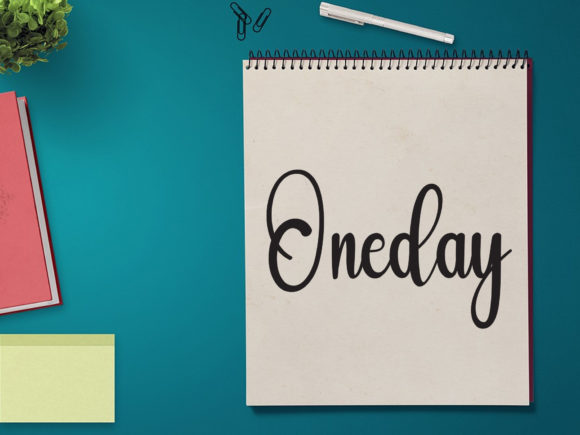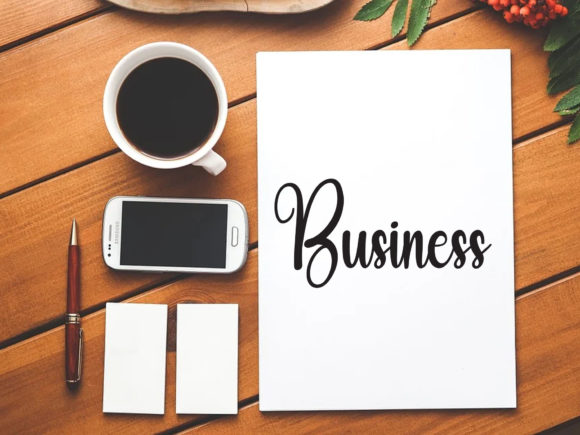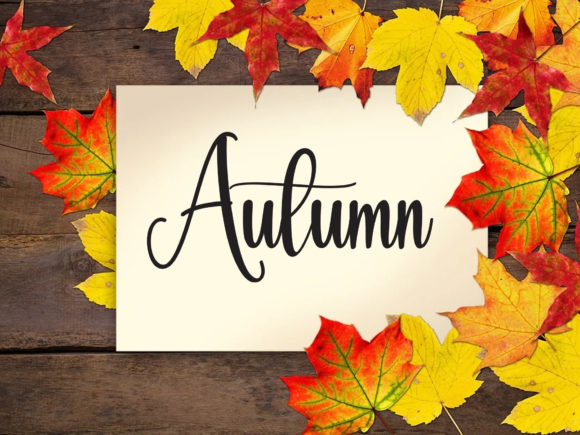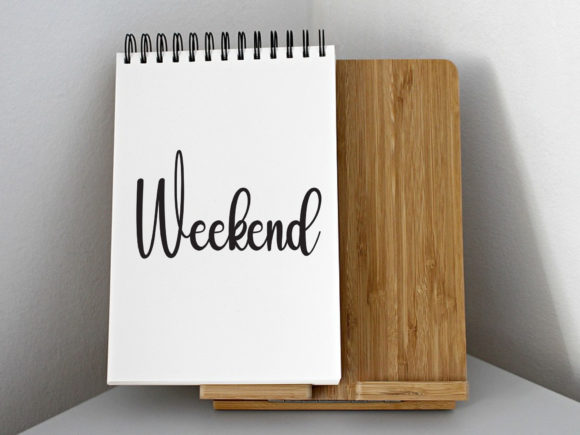
Introducing Alexa Font: The Sweet Handwritten Font for Joyful Creations
Are you a designer, crafter, or creative looking for a font that can add a touch of joy to your projects? Look no further than Alexa Font, a sweet handwritten font designed with great care to produce exceptional outcomes. In this article, we’ll dive into the features and benefits of Alexa Font, and explore how it can elevate your designs, from quotes and titles to brand names, book covers, and more.
What is Alexa Font?
Alexa Font is a beautiful, handwritten font that exudes warmth and playfulness. Its unique character set is crafted to bring a sense of joy and friendliness to any design project. Whether you’re working on a book cover, poster, or social media graphic, Alexa Font is the perfect choice to add a personal touch.
Key Features of Alexa Font
- Handwritten style: Alexa Font boasts a genuine, handwritten look that’s perfect for creating unique and eye-catching designs.
- Carefully crafted: The font is designed with attention to detail, ensuring that each character is legible and aesthetically pleasing.
- Versatile: Alexa Font can be used for a wide range of projects, from quotes and titles to brand names, book covers, posters, and more.
- Easy to read: Despite its playful nature, Alexa Font remains highly legible, making it suitable for both digital and print applications.
Use Cases for Alexa Font
Alexa Font’s versatility makes it an excellent choice for various design projects. Here are some ideas to get you started:
- Quotes and titles: Add a touch of personality to your inspirational quotes, book titles, or headings with Alexa Font.
- Brand names: Create a unique and memorable brand identity with Alexa Font, perfect for businesses, products, or services.
- Book covers: Use Alexa Font to create eye-catching book covers that stand out on bookshelves or online.
- Posters and flyers: Add a playful touch to your posters, flyers, or brochures with Alexa Font.
- Social media graphics: Elevate your social media presence with Alexa Font, perfect for creating engaging graphics, headers, or quotes.
Benefits of Using Alexa Font
By incorporating Alexa Font into your design projects, you’ll enjoy several benefits:
- Unique and creative designs: Alexa Font’s handwritten style ensures that your designs stand out from the crowd.
- Emotional connection: The font’s playful and friendly nature helps create an emotional connection with your audience.
- Time-saving: With Alexa Font, you can quickly create professional-looking designs without spending hours on typography.
- Cross-platform compatibility: Alexa Font is suitable for both digital and print applications, making it a versatile addition to your design toolkit.
Tips for Using Alexa Font Effectively
To get the most out of Alexa Font, follow these tips:
- Pair with complementary fonts: Combine Alexa Font with other fonts to create visual interest and hierarchy.
- Experiment with colors: Try different color schemes to match your brand or design style.
- Play with sizes and styles: Use varying font sizes and styles to create emphasis and add visual interest.
Alexa Font is a sweet handwritten font that’s perfect for designers, crafters, and creatives looking to add a touch of joy to their projects. With its carefully crafted character set, versatility, and ease of use, Alexa Font is an excellent addition to any design toolkit. Whether you’re working on a book cover, poster, or social media graphic, Alexa Font is sure to bring a smile to your audience’s faces.